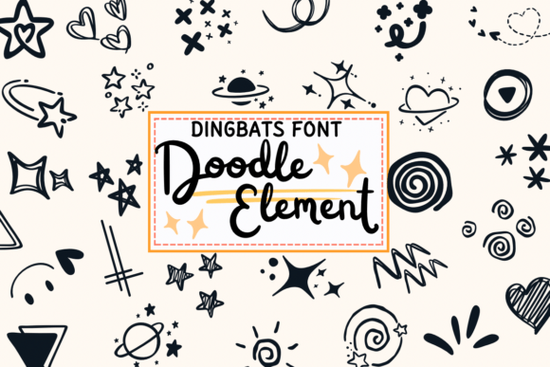
If you're searching for a playful decorative font that works well for both personal journaling and commercial product designs, Doodle Element Font might be exactly what you need. This typeface brings a hand-lettered, whimsical feel to any project without requiring you to draw each letter yourself. It’s a popular choice among crafters and small business owners who want to add a personal touch to their merchandise.
Many designers have used this decorative font to create eye-catching items like greeting cards, mugs, and social media graphics. Because it sits in the “Doodle” subcategory, its letters often feature small embellishments or uneven strokes that mimic real handwriting. That makes it ideal for projects where you want a casual, friendly vibe.
What can you actually do with Doodle Element Font?
The product description mentions taking notes, writing a diary, or making greeting cards. But if you sell print-on-demand products or run a small stationery shop, this font can do a lot more. Here are some practical uses:
- Greeting cards and invitations – The informal style works for birthday cards, thank-you notes, or “just because” mailers.
- Mugs and tumblers – A short quote or a single word in this font stands out against solid or gradient backgrounds.
- T-shirts and tote bags – Combine it with simple icons for a trendy, boho look.
- Social media posts – Use it for Instagram story titles, quote cards, or Pinterest pins.
- Bullet journals and planners – Print headers or stickers for your planner layout.
- Banners and signage – It works well for smaller text like “Sale” or “Welcome” without feeling too rigid.
Because the font is a decorative style, keep your designs simple. Too many competing fonts or heavy graphics will hide its charm.
How does it compare to other script or doodle fonts?
Most script fonts are either very formal (like wedding calligraphy) or very messy (like a rough brush). Doodle Element Font sits in the middle. It’s readable but still looks hand-drawn. That makes it more versatile than extreme doodle fonts that are hard to read at small sizes.
If you need a font for product titles on mugs or stickers, this one holds up well because the letters are relatively consistent. It’s not as polished as a professional script, but that’s the point – it’s supposed to feel homemade and approachable.
Tips for making Doodle Element Font look good in your designs
Since the font already has a lot of character, you don’t need to over-decorate. Here are a few practical suggestions:
- Use plenty of white space – Let the letters breathe. Avoid squeezing them between borders.
- Pair it with a simple sans-serif font – Use a clean font like Montserrat or Lato for supporting text.
- Keep text short – Single words or short phrases look best. Long sentences can become hard to read.
- Experiment with color – Pastels, earthy tones, or even a simple black-on-cream background work well.
- Add a subtle shadow or outline – A drop shadow can help the text stand out on busy backgrounds like photos or patterned paper.
Is this font worth trying if you’re just starting out?